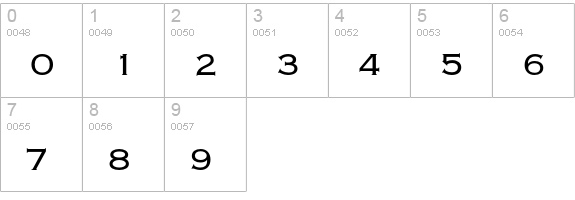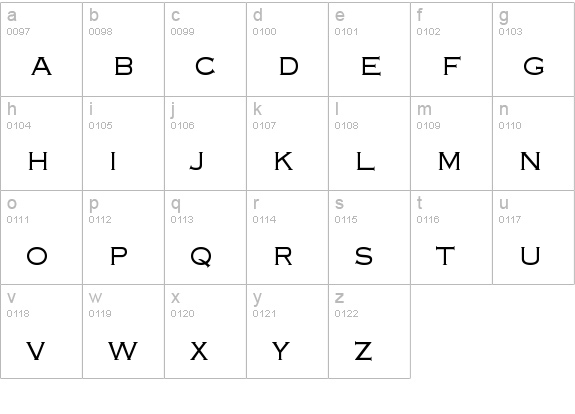
Copperplate Gothic Std 32 BC is a classic and sophisticated font that exudes elegance and professionalism. With its timeless appeal and sleek design, this font is perfect for a wide range of design projects, from invitations to branding materials. The sharp angles and refined lines of Copperplate Gothic Std 32 BC make it a standout choice for any designer looking to add a touch of sophistication to their work. The best part? Copperplate Gothic Std 32 BC is available for free download at FontsMarket.com. Now you can easily access this premium font without breaking the bank. Whether you're a seasoned designer or just starting out, Copperplate Gothic Std 32 BC is a must-have addition to your font collection. Download it today and elevate your designs with this exquisite typeface.